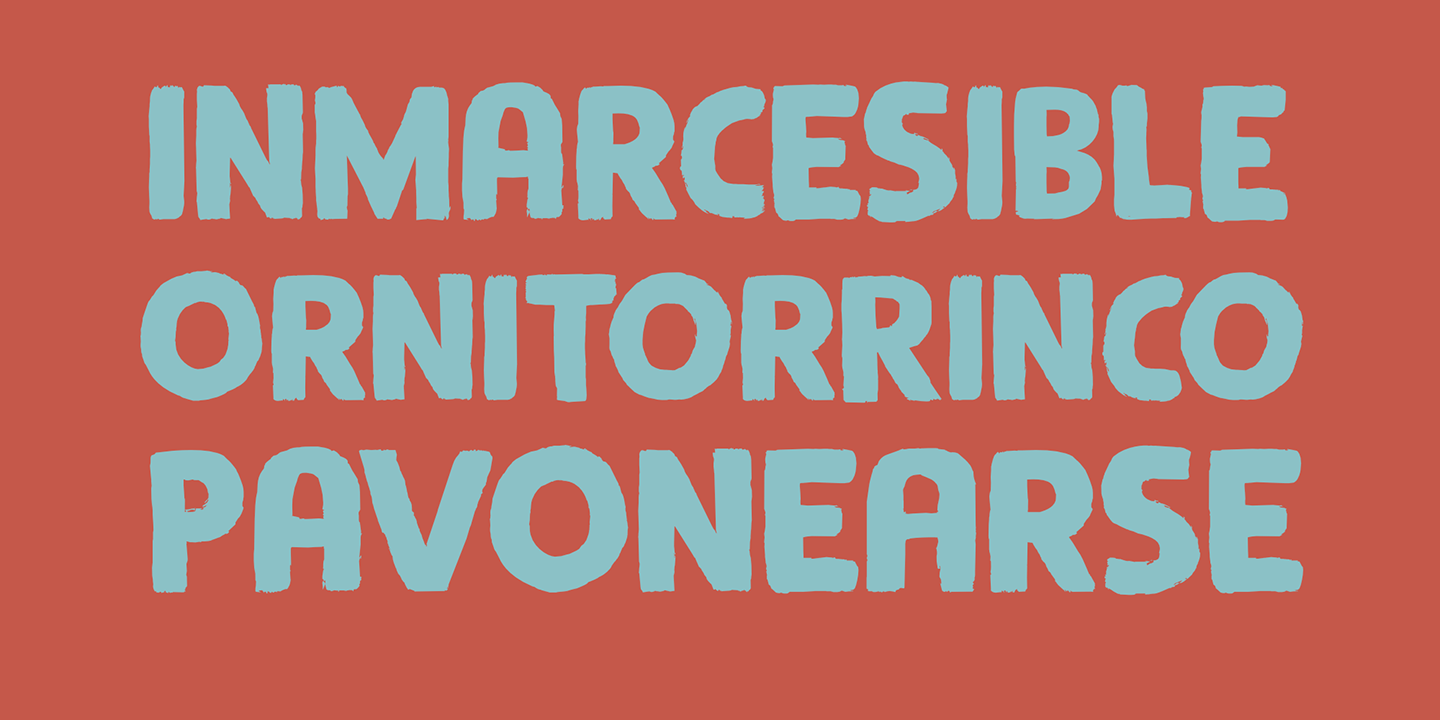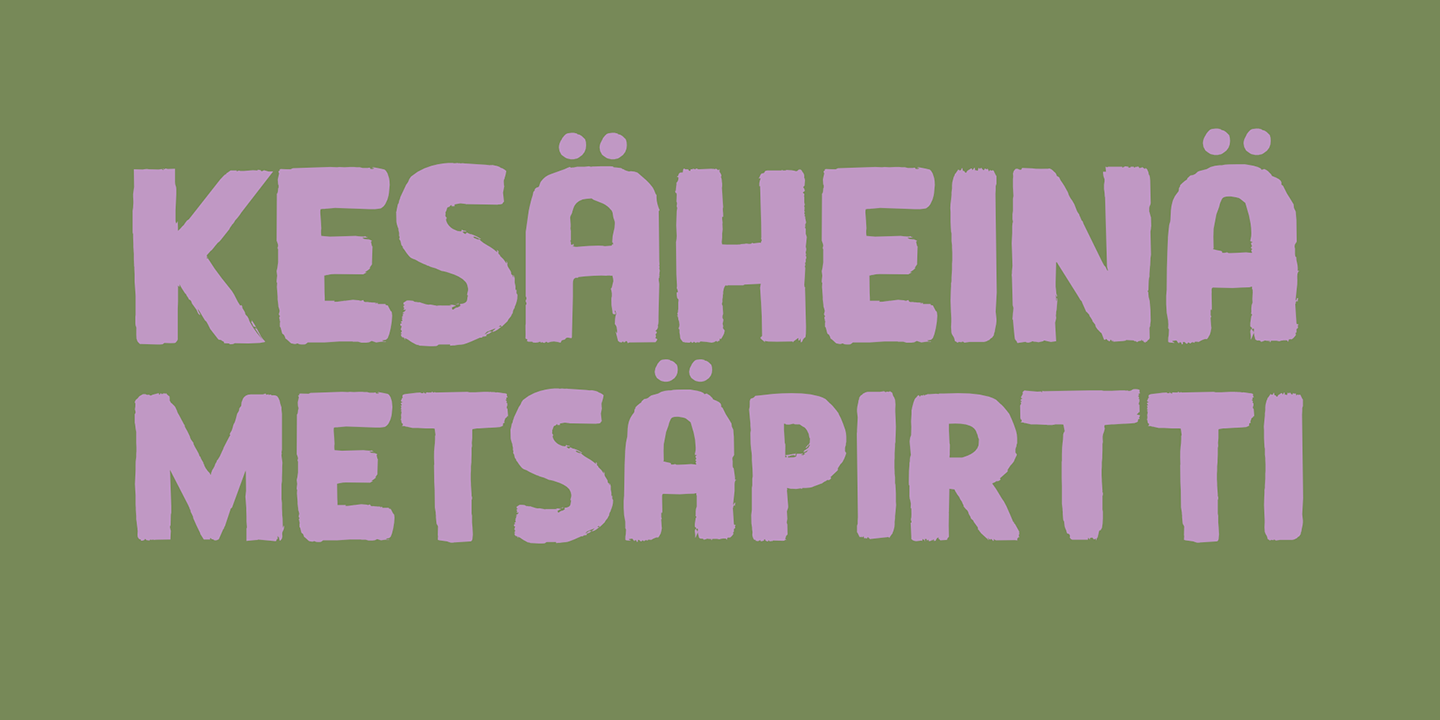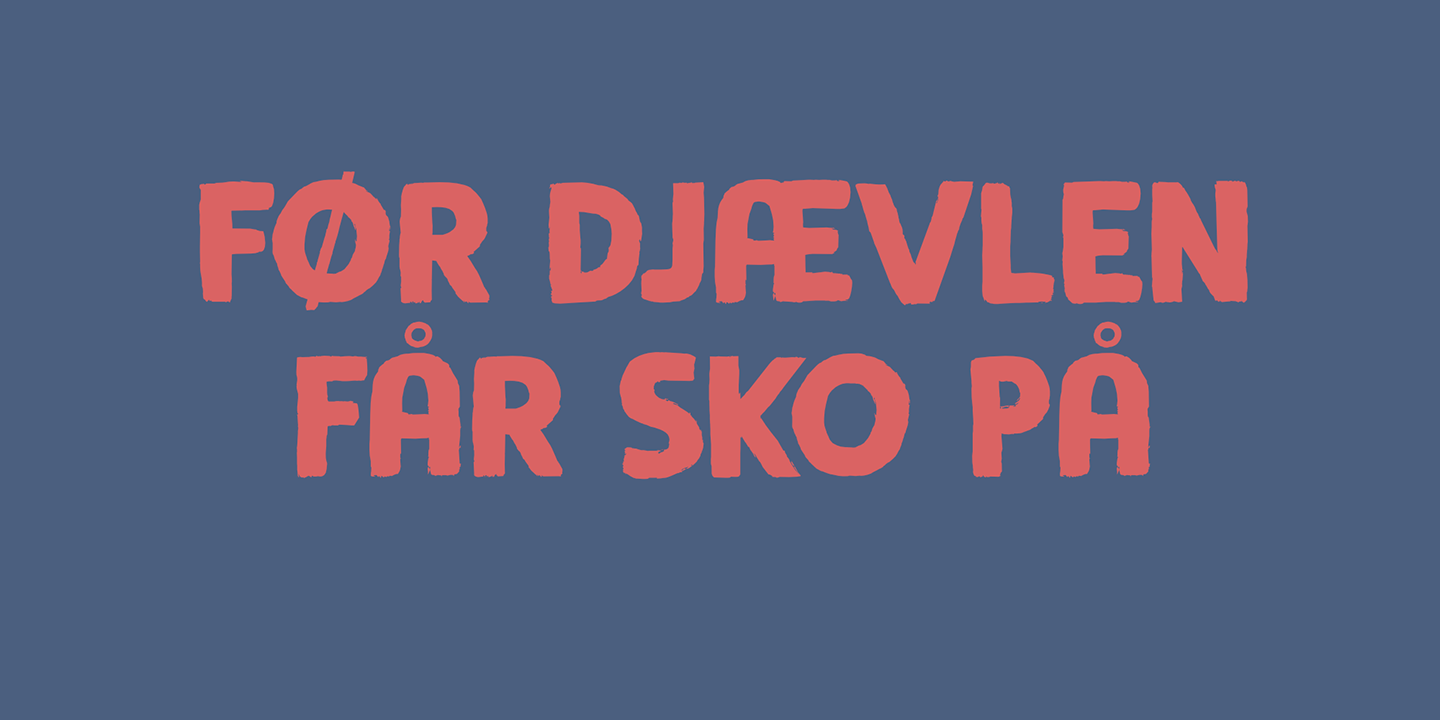
Visual Fantasy is a great, all caps display font. It was based on an old font of mine called Plakkaat, which was made using a flat brush and acrylic paint. Visual Fantasy is great for poster work, book covers and product packaging. Comes with extensive…